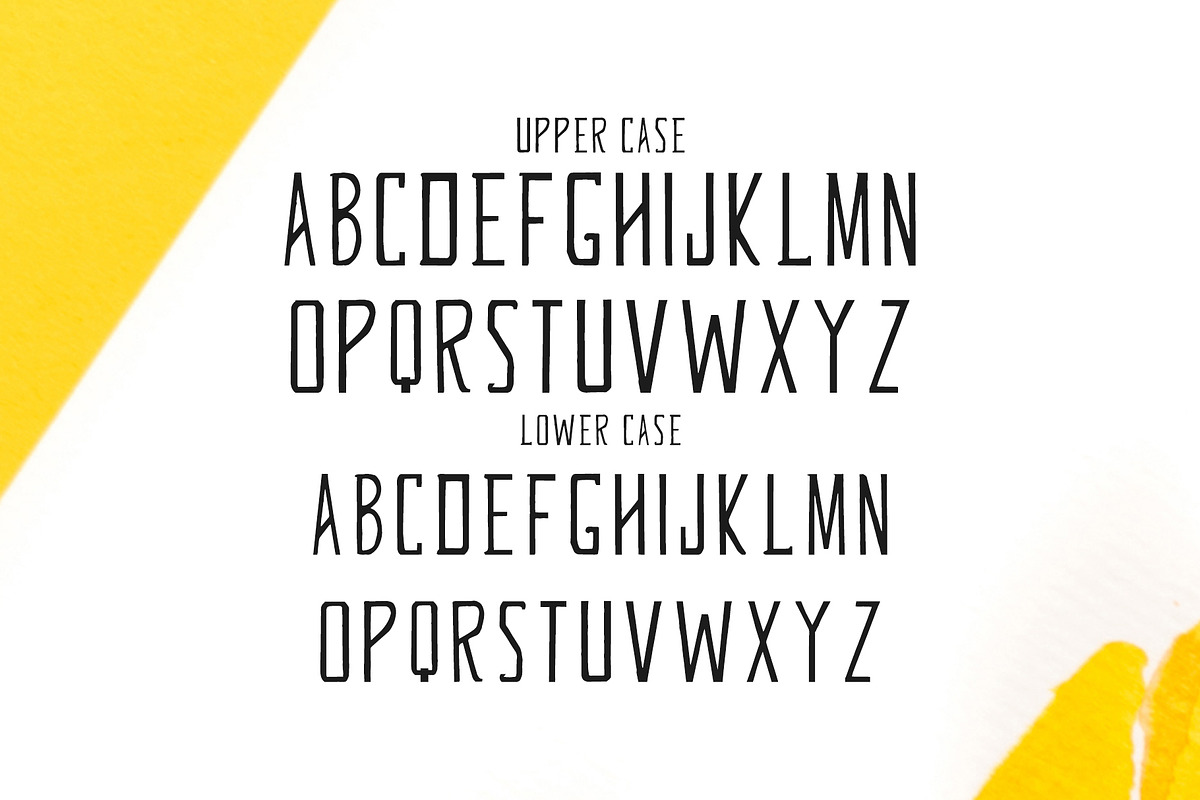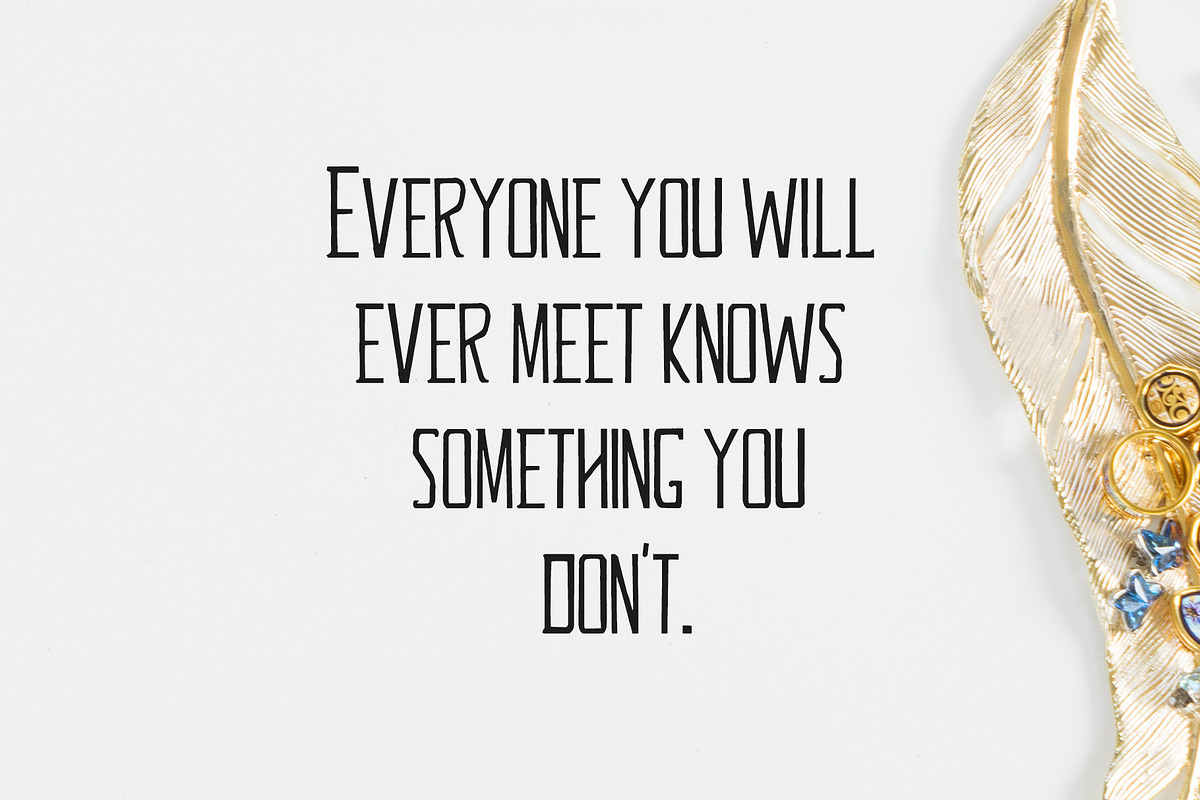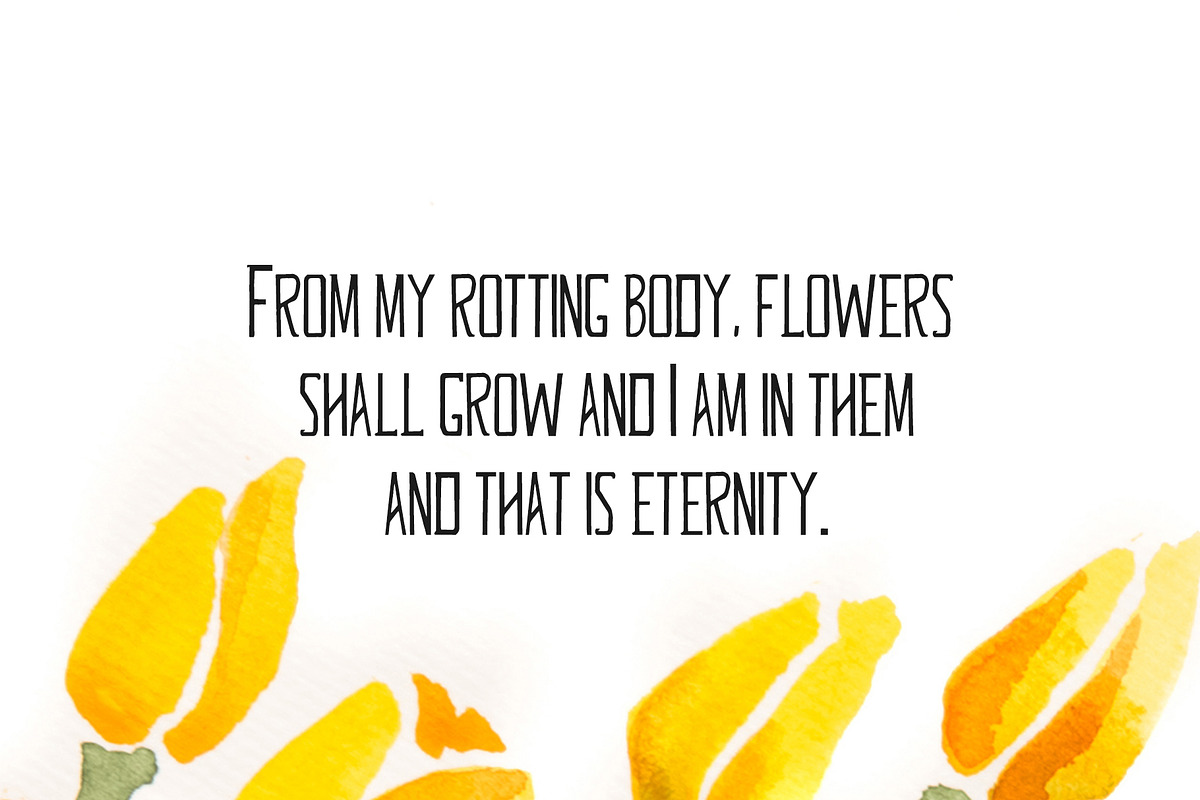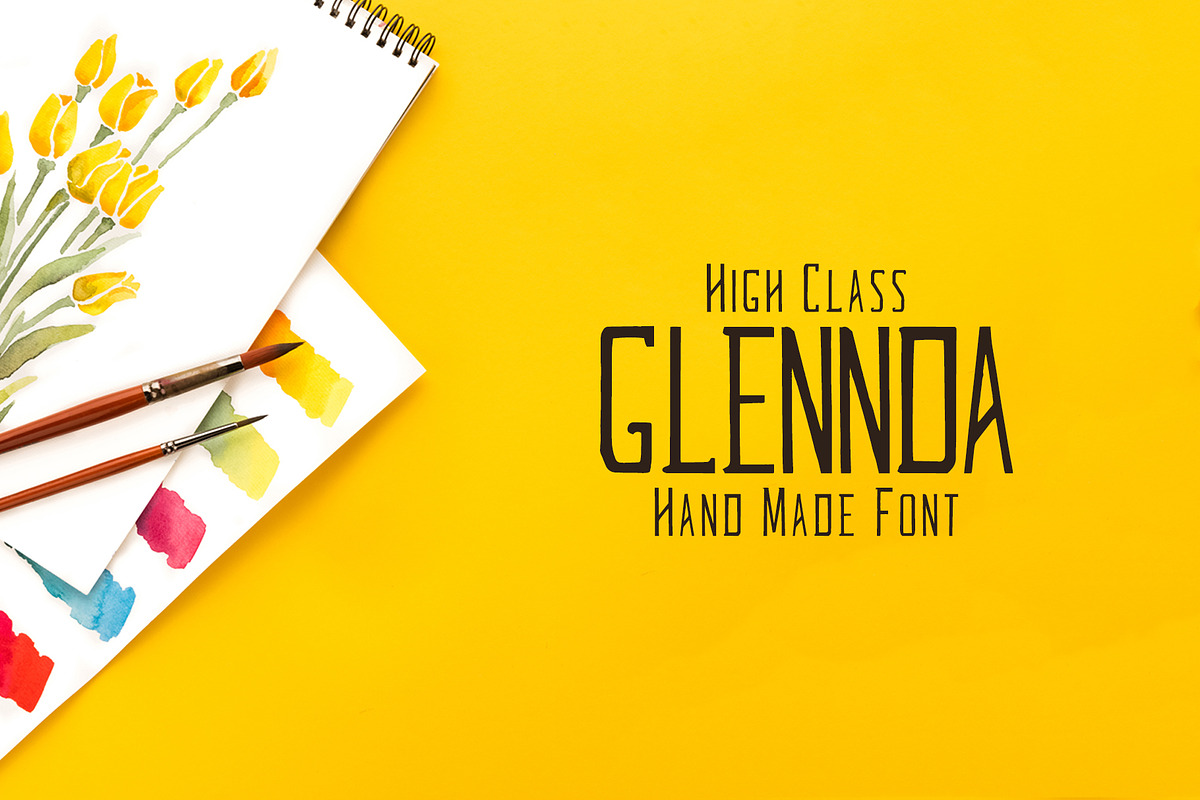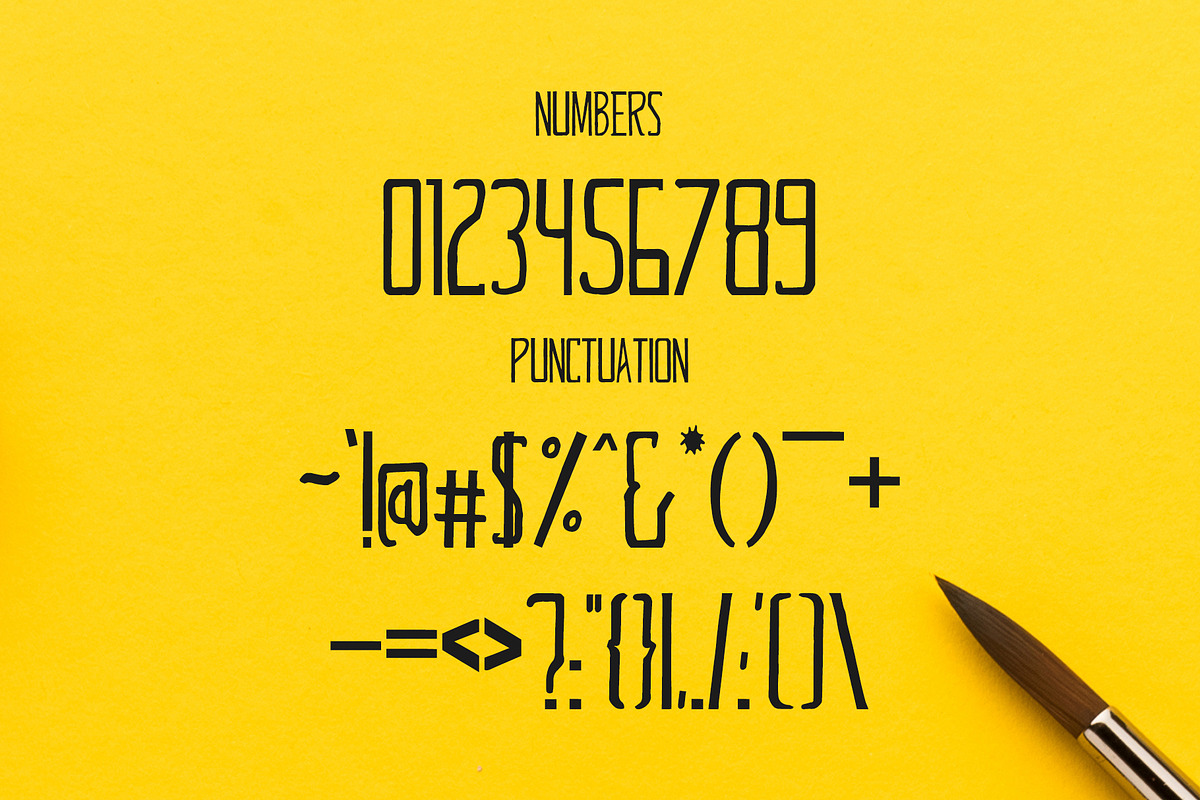
Glennda Handmade 5 Font Family
Glennda Handmade 5 Font Family by Creativetacos is a font selected for branding, posters, packaging, typography.
- Glennda is a beautiful handwritten font which contains 5 weights and that is specifically designed for minimal projects.
- Includes 5 weight The perfect choice for Future, Modern, Fashion & Magazine Titles.
- Glennda is a beautiful handwritten font which contains 5 weights and that is specifically designed for minimal projects.
- Includes 5 weight The perfect choice for Future, Modern, Fashion & Magazine Titles.
- Regular, Italic, Blur, Outline and Tracked Weights
- Glennda Regular
- Glennda Italic
- Glennda Blur
- Glennda Outline
- Glennda Tracked
Why Glennda Handmade 5 Font Family is worth a look
Glennda Handmade 5 Font Family by Creativetacos fits naturally into Branding, posters, packaging, typography.